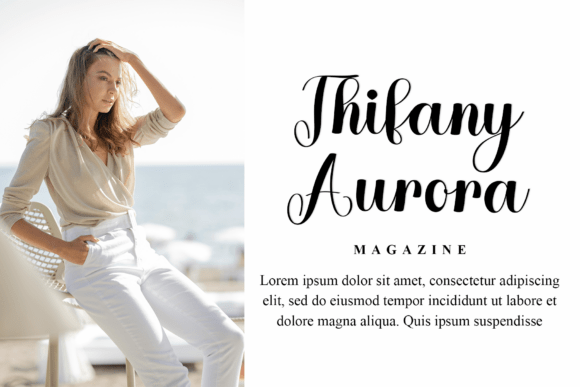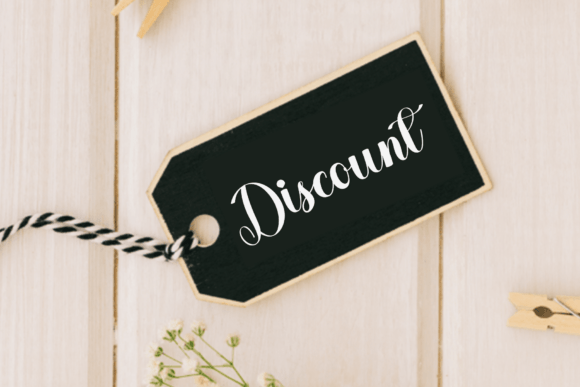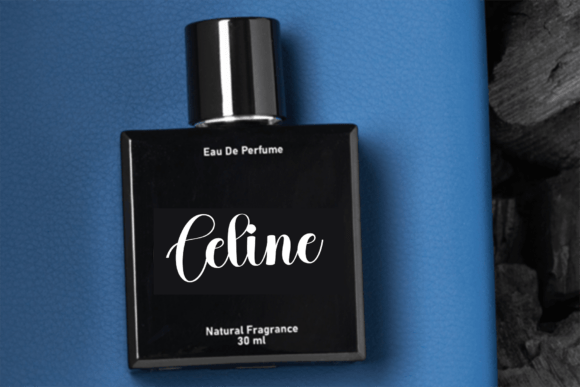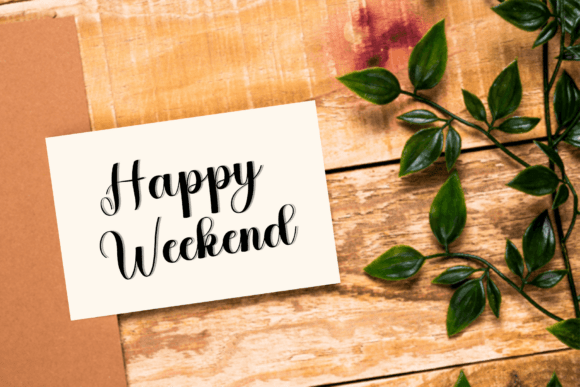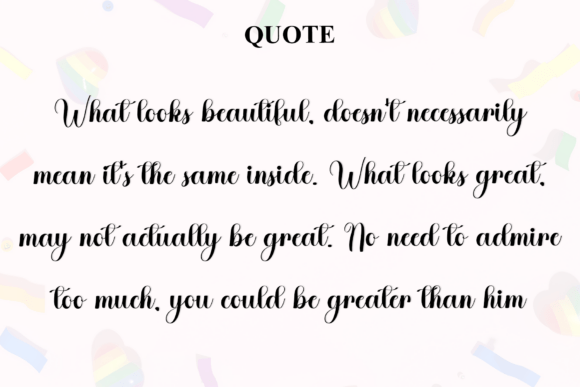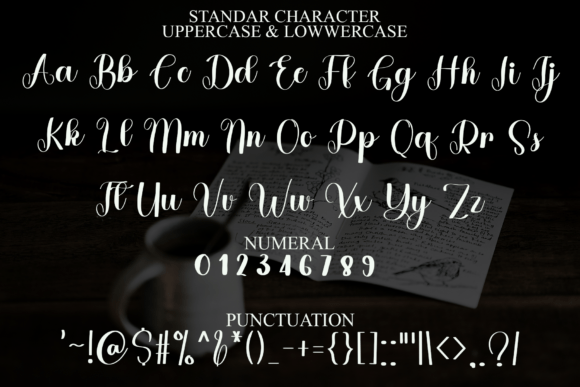
Introduction to Satuday Holiday Font
As a designer, have you ever been stuck trying to convey the magic of the holiday season with the right font? The struggle is real, but we’ve got the solution for you! Imagine a typeface that embodies the essence of joy, wonder, and nostalgia, perfect for making your holiday-themed projects shine. It’s a font that brings a smile to your face and a twinkle to your design.
Meet the Satuday Holiday Font, a high-quality, free download that’s packed with decorative elements and whimsical flair. With its transparent background, this design resource is a game-changer for any creative project. Whether you’re working on greeting cards, gift tags, or holiday-themed designs, this font is sure to add a touch of enchantment to your words.
Key Features of Satuday Holiday Font
- High-quality design: The Satuday Holiday Font is designed with precision and attention to detail, ensuring a high-quality look for any creative project.
- Unique characteristics: The Satuday Holiday Font features a unique blend of modern and vintage elements, making it an excellent choice for creative projects that require a touch of personality.
Honest Review: Satuday Holiday Font
I recently stumbled upon the Satuday Holiday Font, and I must say it’s a unique addition to my design resource library. The free download was a pleasant surprise, and the transparent background makes it easy to incorporate into any creative project.
What works well: ✨ The font’s playful, cursive style is perfect for adding a touch of whimsy to invitations, social media graphics, or even a website’s header. I also appreciate the high quality of the font, which is crisp and clear even at smaller sizes.
- Highly customizable with various font sizes and colors
- Works well for creative projects that require a playful, festive feel
However, there are some limitations: ⚠️ The font’s limited character set may not be suitable for longer blocks of text, and some users may find the cursive style difficult to read at very small sizes.
Overall, I’m impressed with the Satuday Holiday Font’s potential as a design resource. While it may not be suitable for every project, it’s a great option for creative projects that require a fun, festive touch.
Tips for Getting the Most Out of Satuday Holiday Font
To get the most out of the Satuday Holiday Font, use it with a transparent background to give your designs a clean and modern look. You can also experiment with different font sizes and colors to add visual interest to your project.
The Satuday Holiday Font is perfect for a wide range of creative projects, including social media graphics, presentations, and documents. It’s also great for use in branding and marketing materials, where a high-quality and unique font can make a big impact.